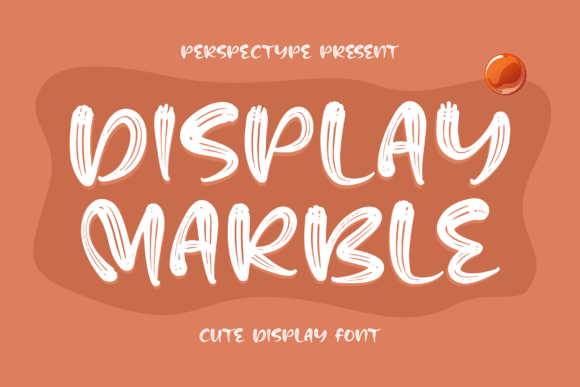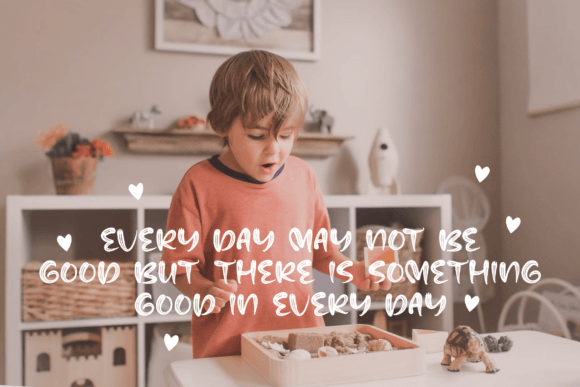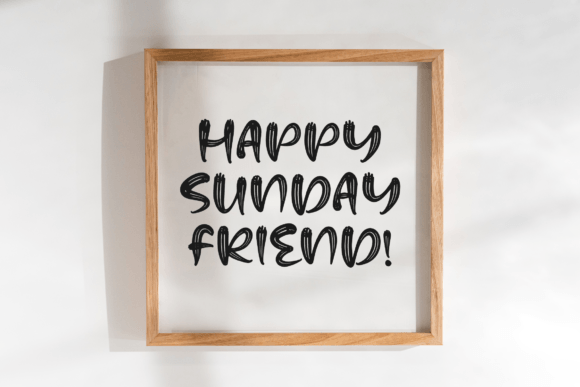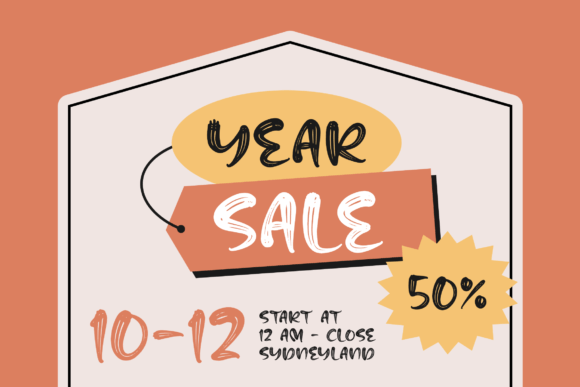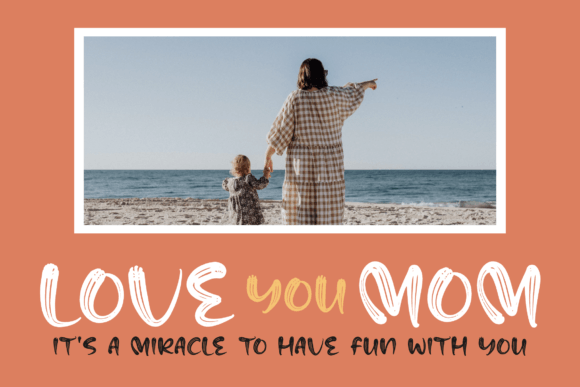
About Display Marble Font
“Display Marble” is a fun and cool script display font that has been masterfully designed to become a favorite choice for creative projects. This font is versatile and has the potential to elevate your creative ideas to new heights.
The charm of “Display Marble” lies in its fun and cool script. Its well-crafted characters create a visually captivating and playful experience, making it an ideal choice for projects that aim to convey a sense of creativity, vibrancy, and uniqueness.
One of the standout qualities of “Display Marble” is its versatility. Whether you’re using it to design eye-catching posters, create engaging branding materials, or make your headlines stand out, this font seamlessly integrates into your creative vision.
This font’s dedication to providing a fun and cool look to your projects sets it apart. Whether you’re working on personal or professional endeavors, “Display Marble” brings a sense of playfulness and uniqueness to your work that resonates with a diverse audience.
In summary, “Display Marble” is more than just a font; it’s a fun and cool creative tool that can take your projects to new creative heights. Whether you’re a professional designer seeking a font that adds vibrancy to your projects or an enthusiast passionate about crafting and design, “Display Marble” is here to enhance your creative endeavors with its playful and cool script. Embrace the fun of “Display Marble,” and watch your creativity soar with engaging and unique designs.